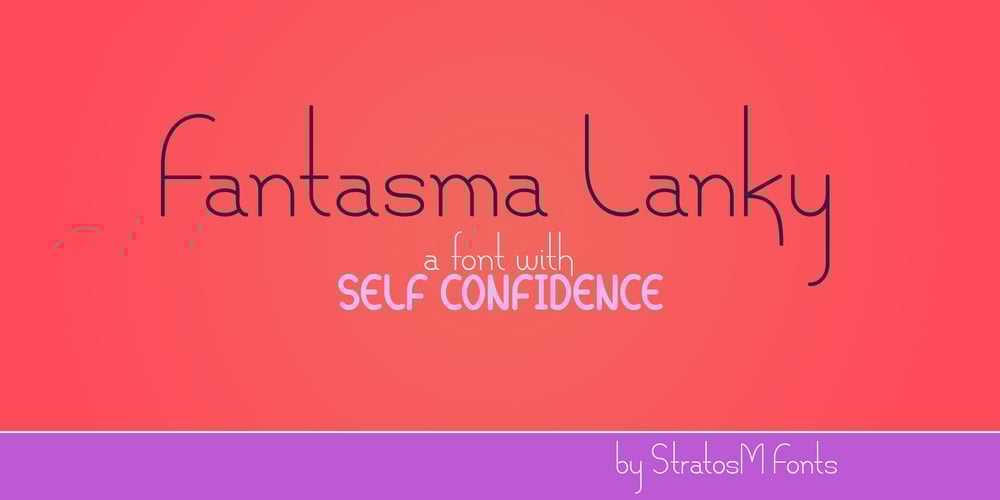
Fantasma Lanky Font Family was designed by Efstratios Moysis and published by StratosMFonts. Fantasma Lanky contains 24 styles and family package options. The ”Fantasma lanky” is StratosMFonts’ first font project. The ”Fantasma lanky” style is a sans typeface with a sense of script and a dramatic touch. It’s a font family that includes 24 members from Thin to ExtraBlack covering Latin, Baltic, Turkish and Greek languages (Latin 1, Latin 2: Eastern Europe, Greek, Turkish, Baltic)